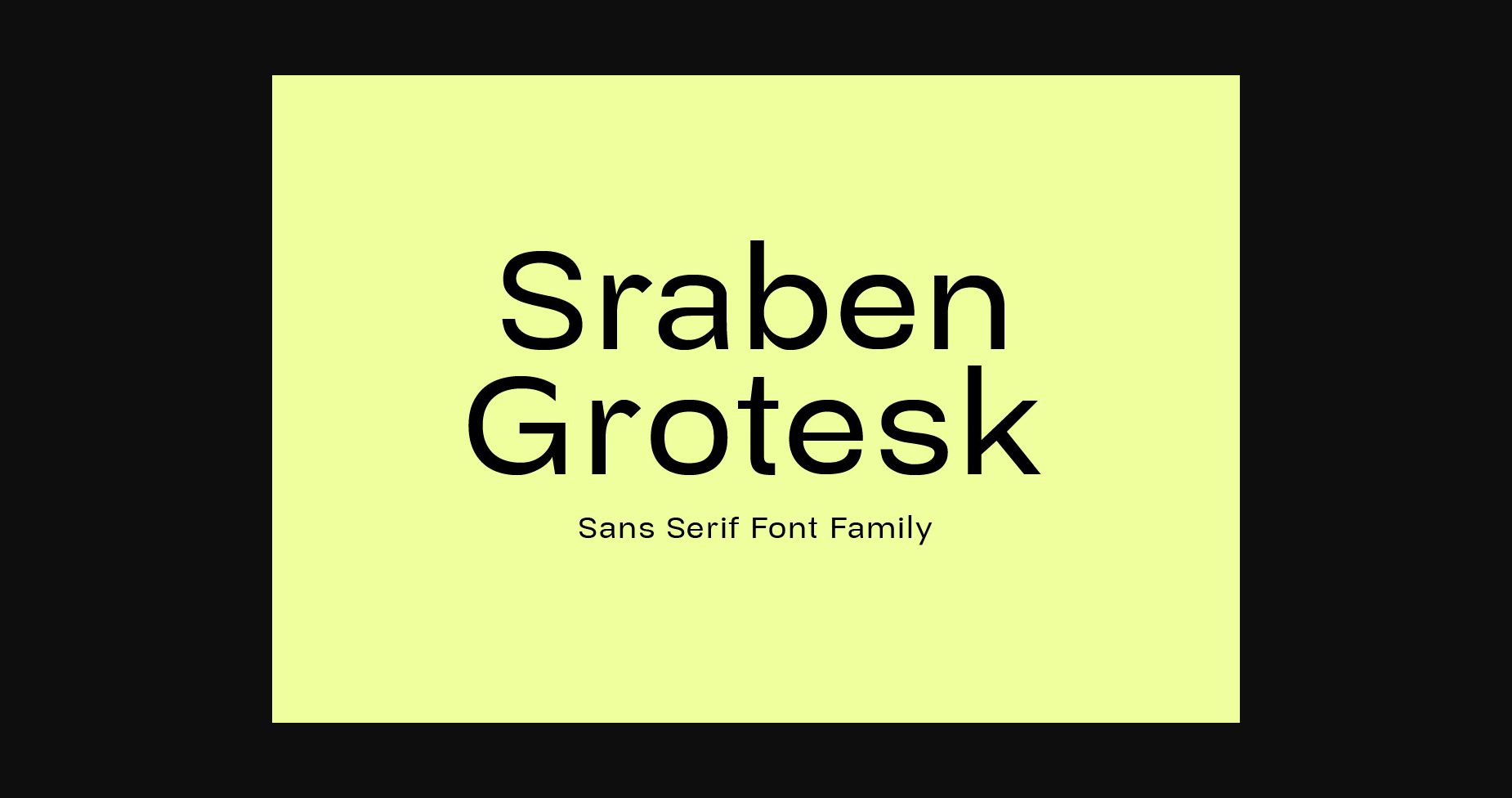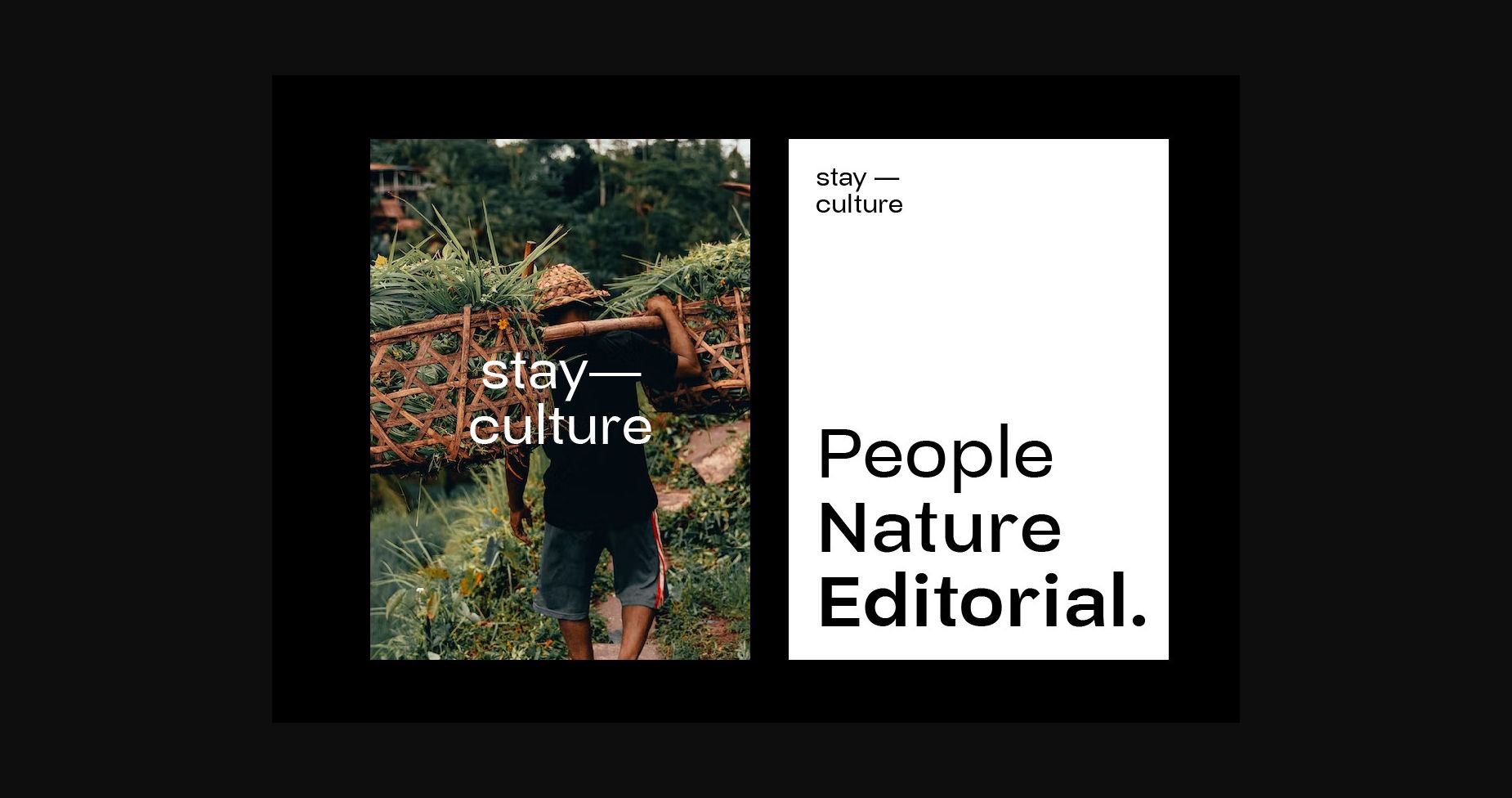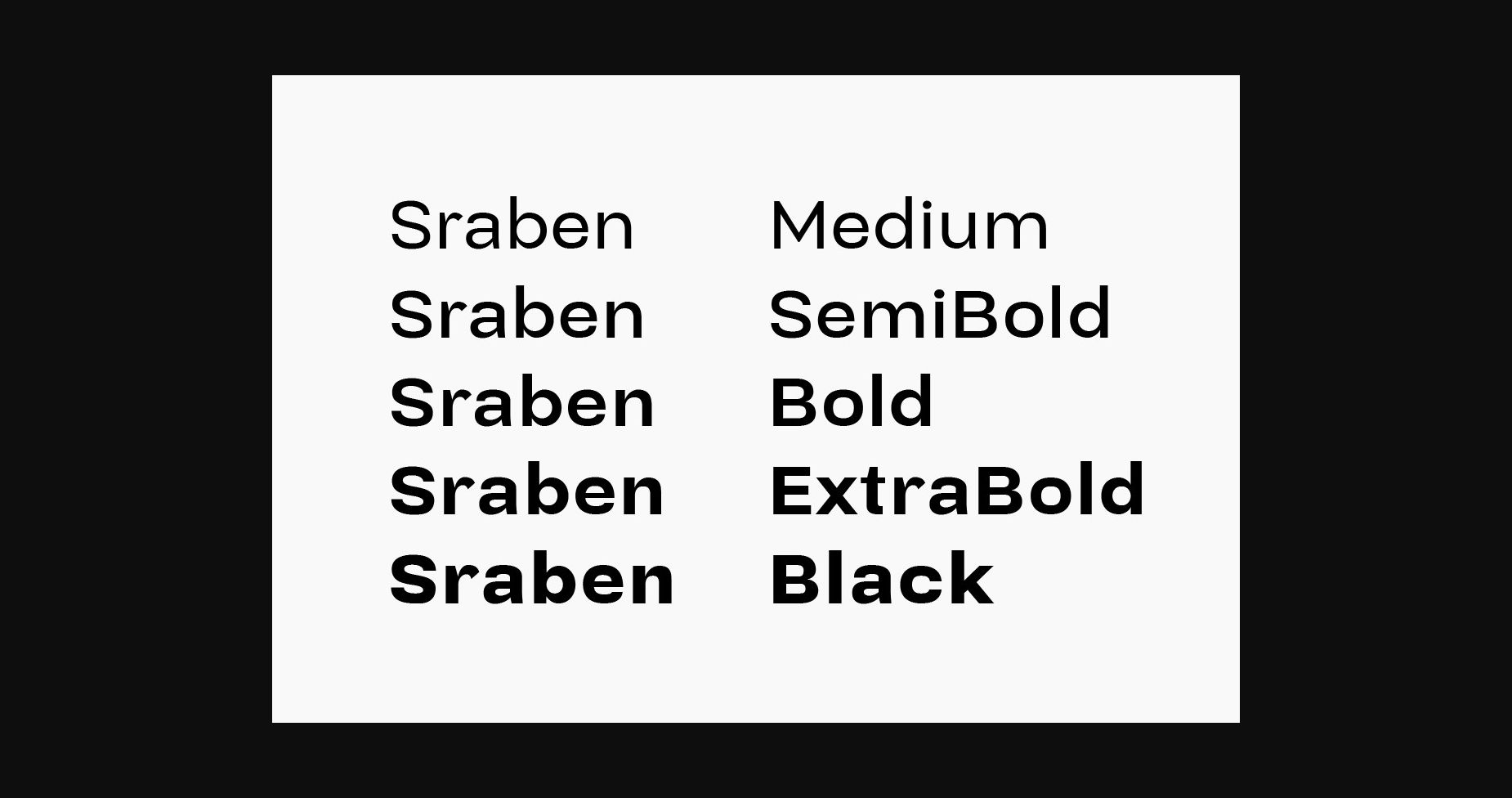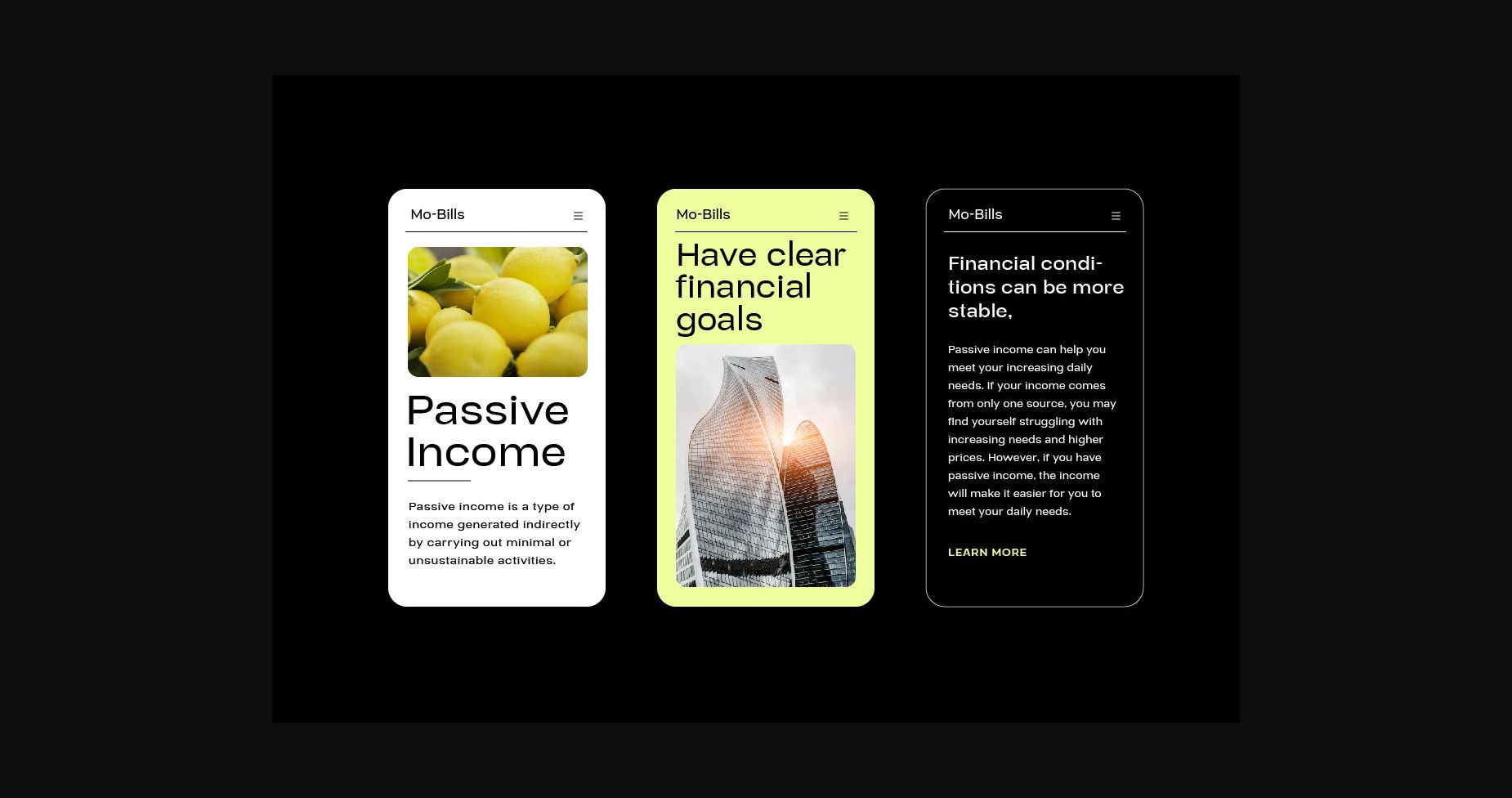
About Sraben Grotesk Font
Sraben Grotesk is a beautiful, versatile font that’s perfect for all kinds of projects! It features balanced and harmonious proportions, plus bold variations to make certain elements stand out.
This font offers classic characteristics inspired by Grotesk typography, making it an ideal choice for posters, flyers, brochures, brand identity designs, and magazine layouts. Whether you’re looking to create something new or bring a creative twist to an existing project, Sraben Grotesk can be the perfect choice.
Let its clean aesthetic fuel your imagination and inspire you as you achieve your design goals!
This font offers classic characteristics inspired by Grotesk typography, making it an ideal choice for posters, flyers, brochures, brand identity designs, and magazine layouts. Whether you’re looking to create something new or bring a creative twist to an existing project, Sraben Grotesk can be the perfect choice.
Let its clean aesthetic fuel your imagination and inspire you as you achieve your design goals!